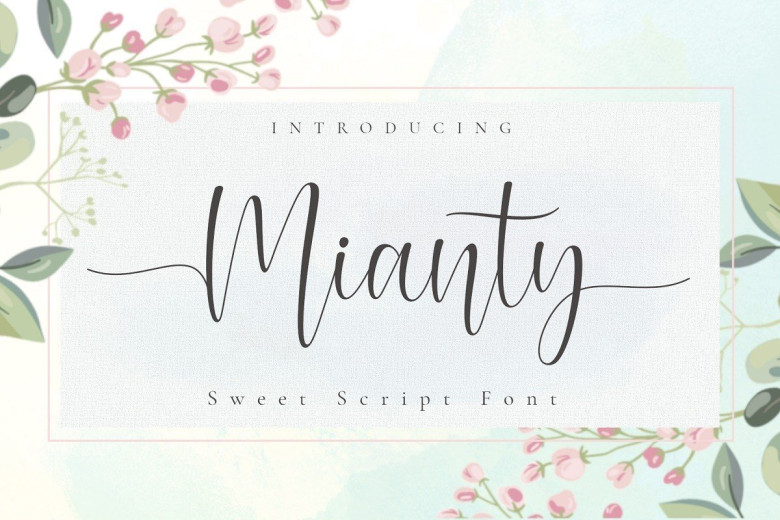
Mianty Calligraphy Script Font
Introducing Mianty Font, a work that is purely handwritten calligraphy script font, has natural characteristics. It’s perfect for invitations, signatures, blogs, social media, business cards, product brands.
Mianty Font has a style of letters, namely standard Stylistic and Stylistic Alternate, Swahs and includes upper and lower case letters, numbers and punctuation.